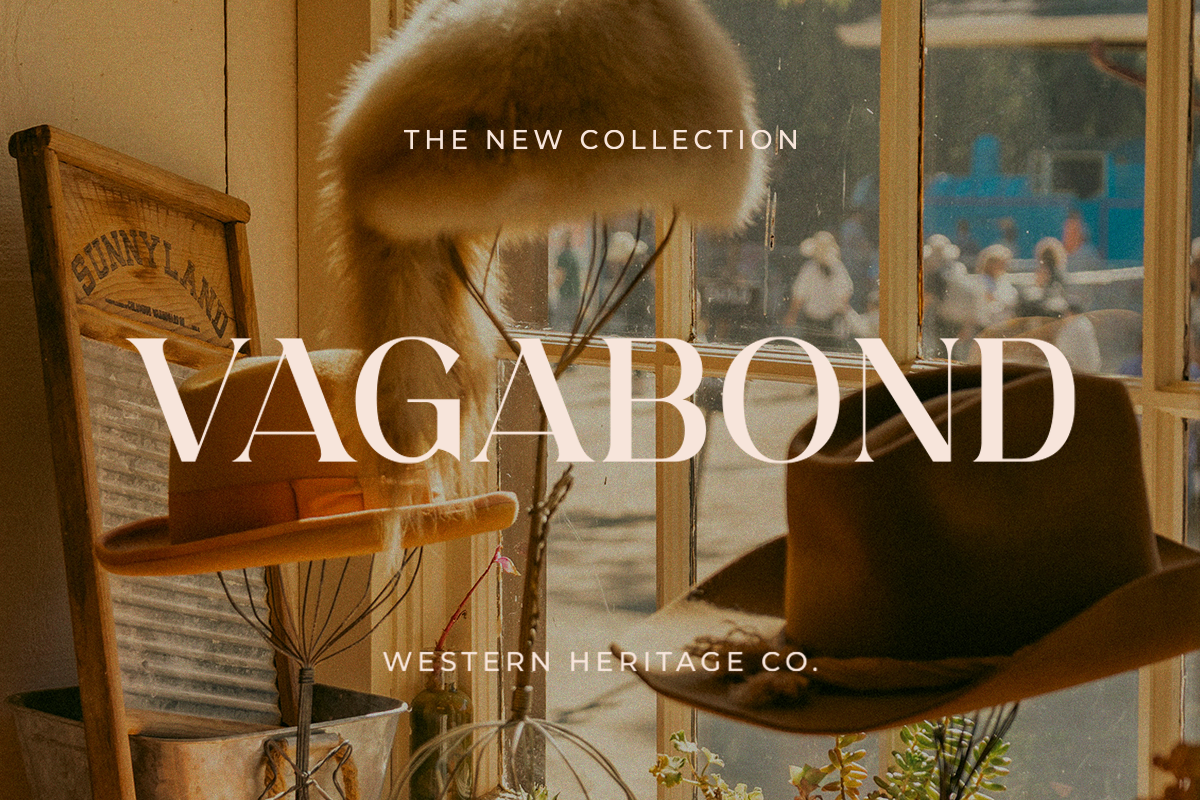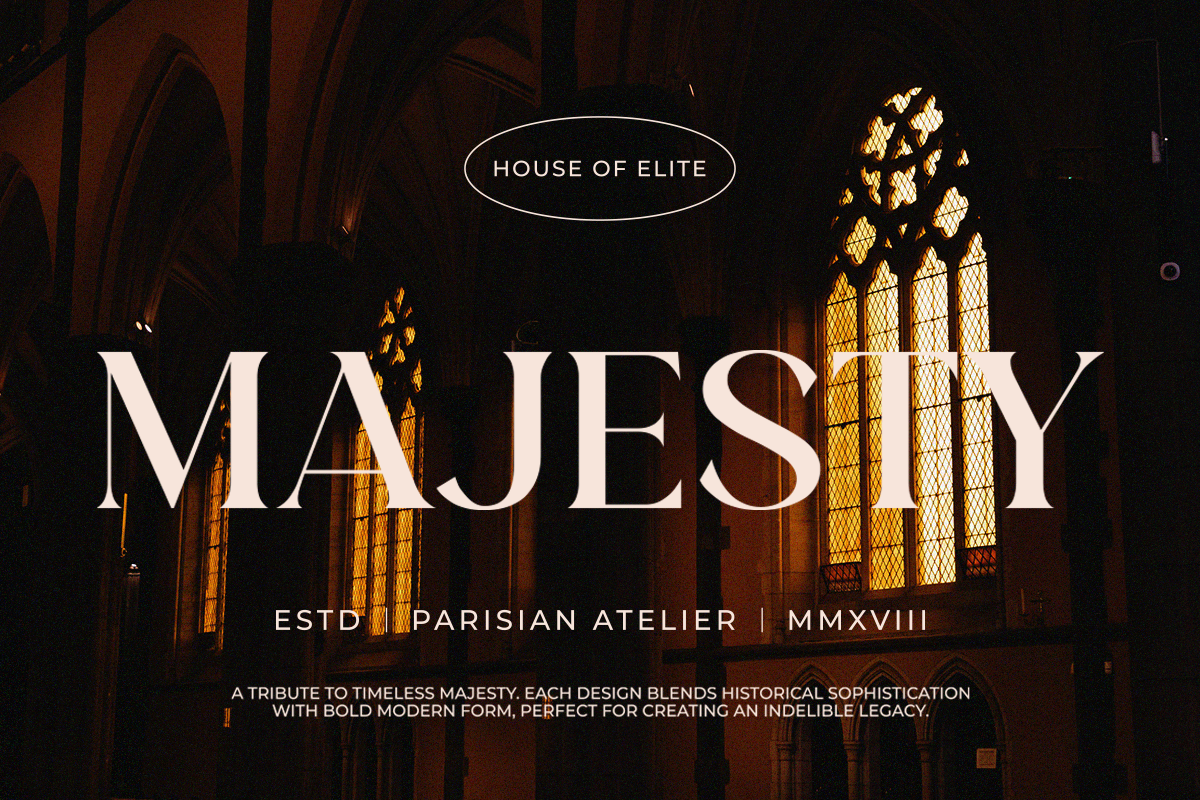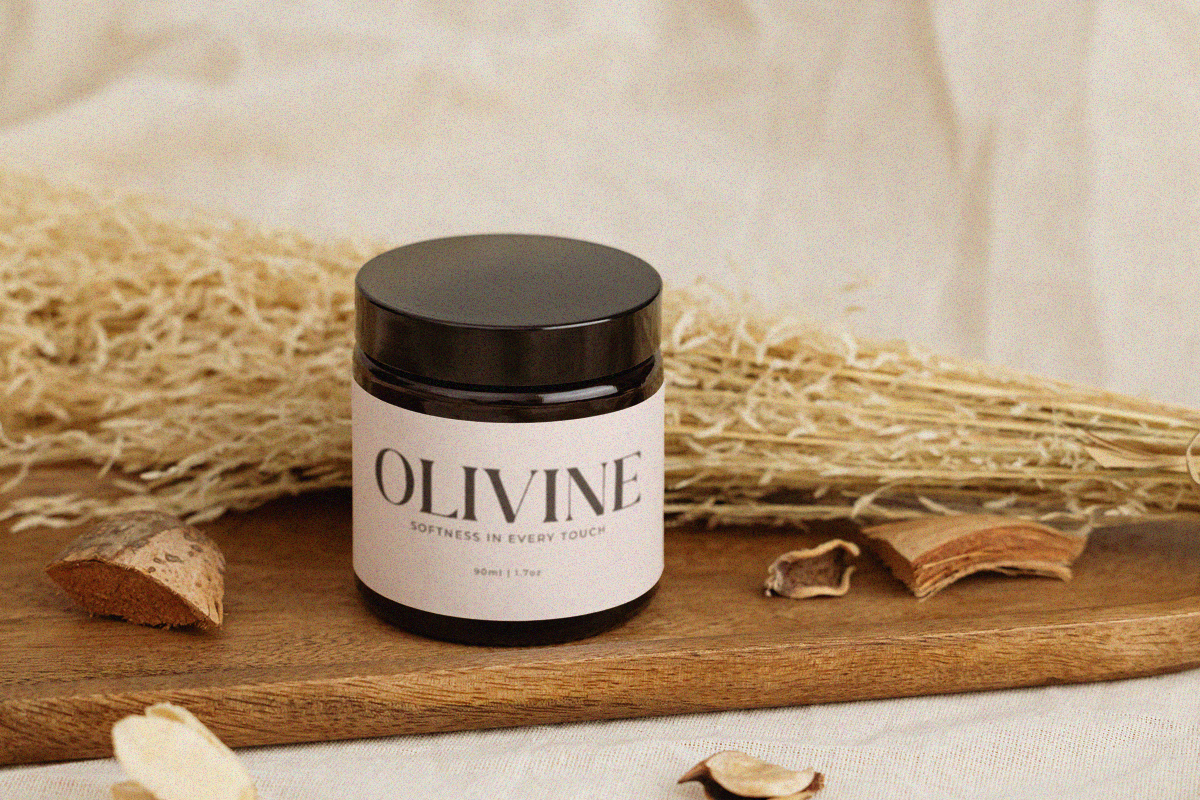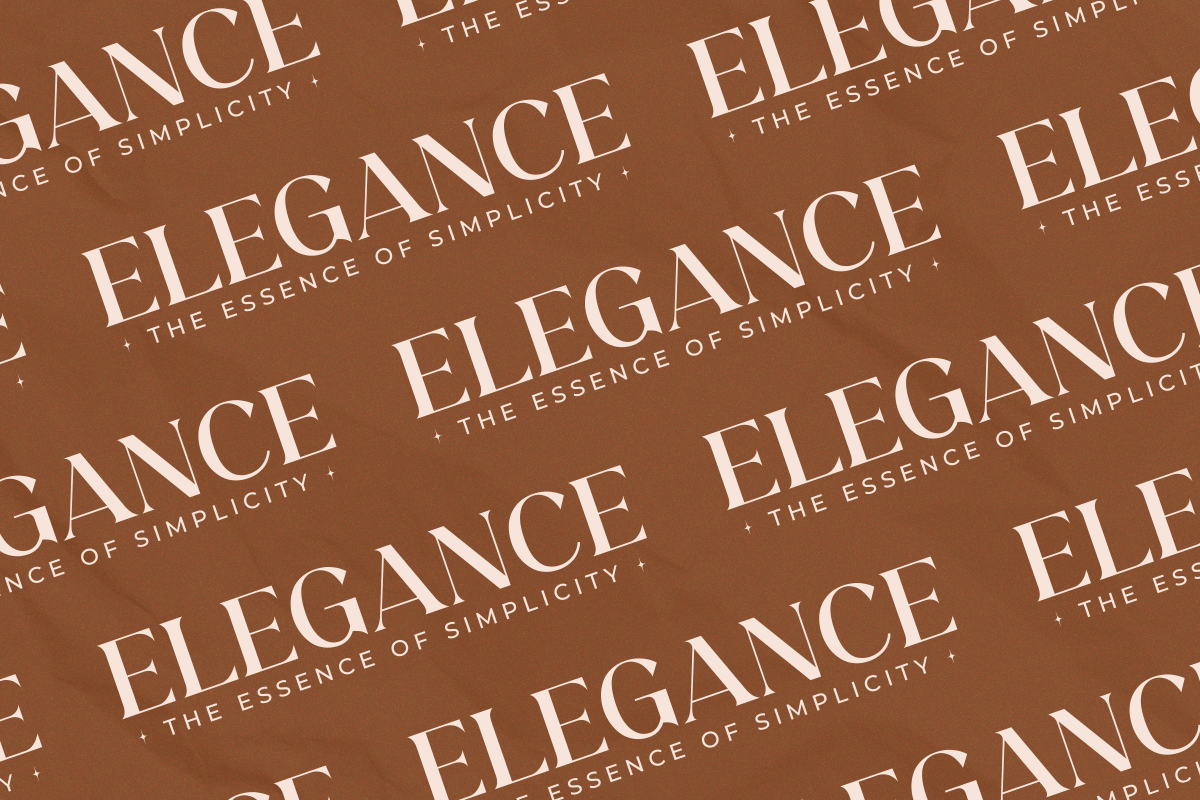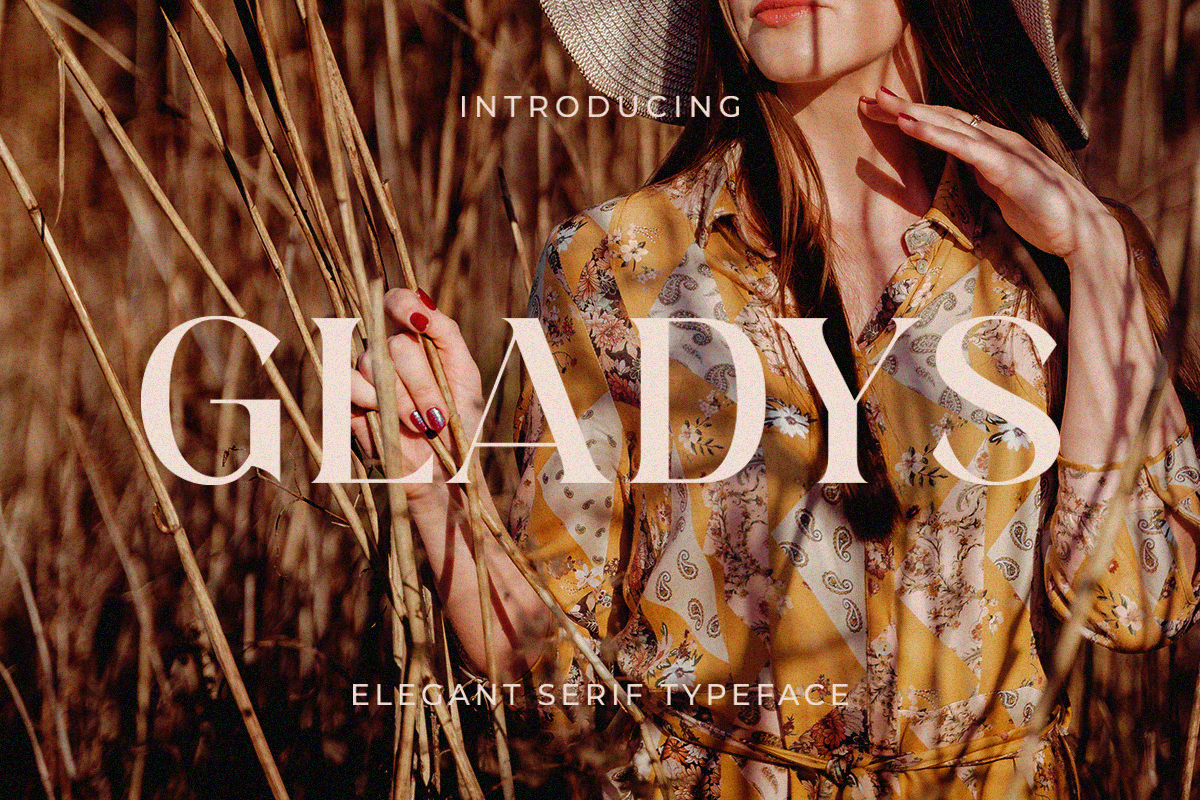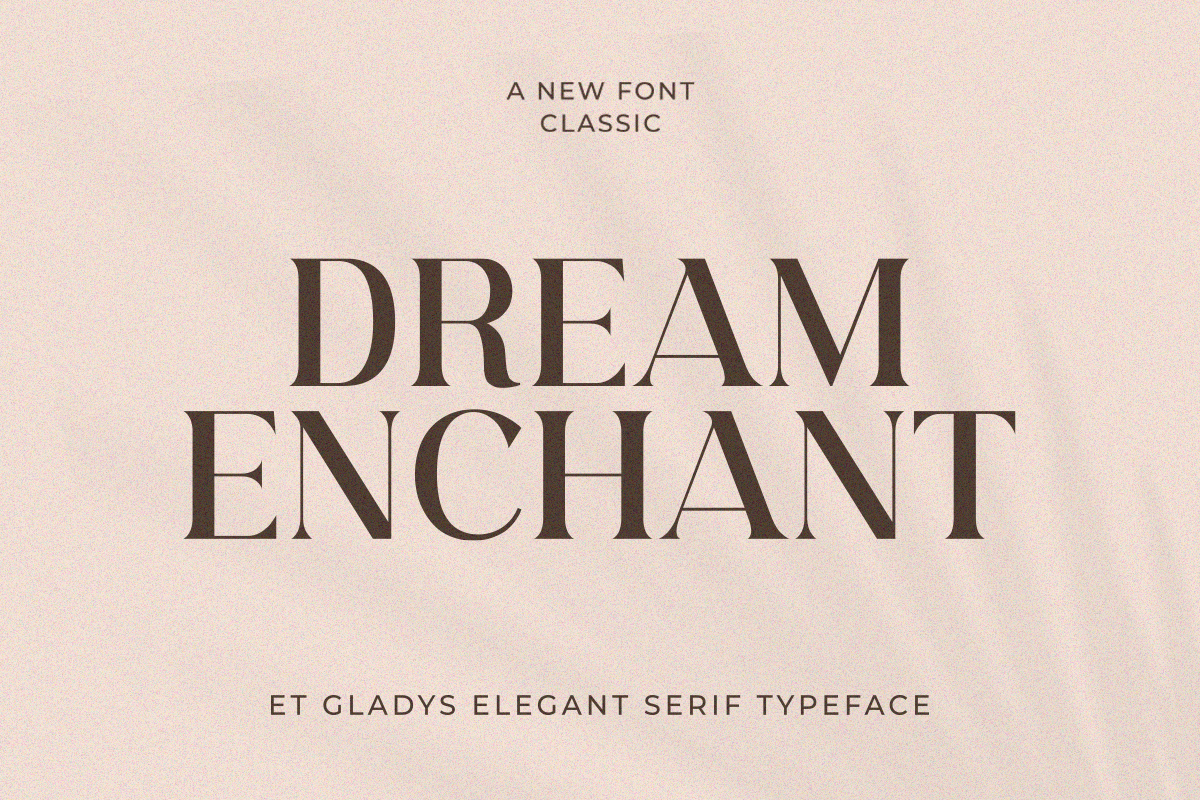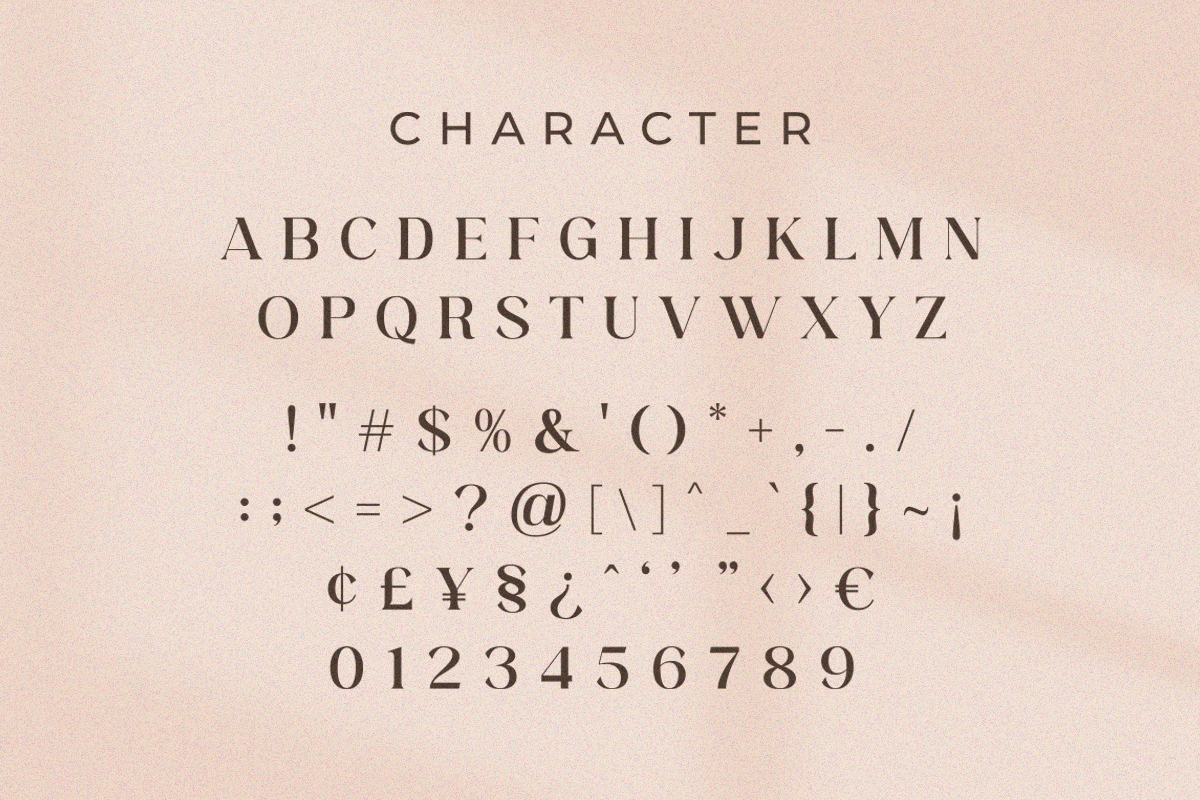
ET Gladys - Elegant Serif Typeface
ET Gladys is a beautifully balanced, high-contrast serif typeface designed to add a touch of classic luxury and refined elegance to any project. Its delicate serifs, graceful curves, and varying stroke weights create a stunning visual rhythm that is both memorable and highly readable.
Perfect for brands seeking a luxurious, exclusive, and high-end aesthetic, ET Gladys embodies sophistication and style.
✨ Key Features :
Elegant & High-Contrast Design: The striking variation between thick and thin strokes provides a sophisticated and timeless look, making it stand out in display settings.
Versatile Use: Ideal for everything from high-fashion branding and editorial layouts to wedding invitations and luxury product packaging.
Multi-Lingual Support: (If applicable, mention the specific languages or character sets supported, e.g., Supports over 100 Latin-based languages.)
Full Punctuation & Numerals: Comprehensive set of characters to meet all your design needs.
Standard Ligatures: (If applicable, mention standard ligatures to enhance flow and readability.)
💎 Perfect For :
High-End Branding & Logos: Creating distinctive, memorable brand marks.
Magazine & Editorial Design: Titles, headlines, and pull-quotes that demand attention.
Wedding & Event Invitations: Adding a touch of classic romance and luxury.
Fashion & Cosmetics Packaging: Conveying quality and premium status.
Website Headers & Social Media Graphics: Ensuring your message looks polished and authoritative.